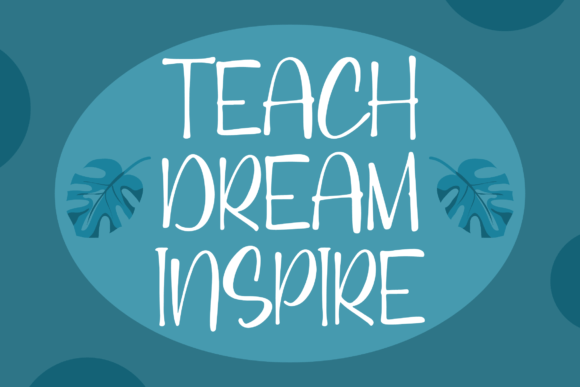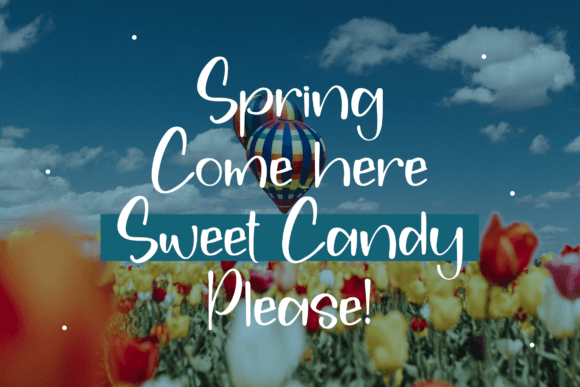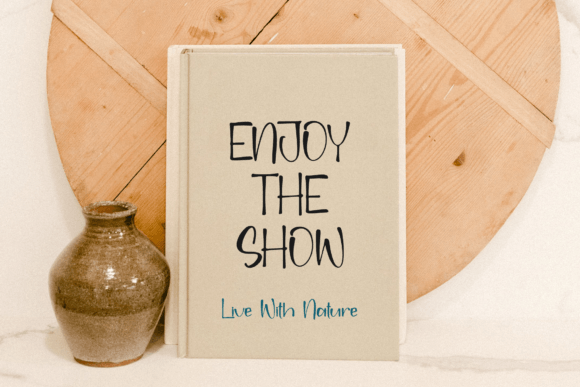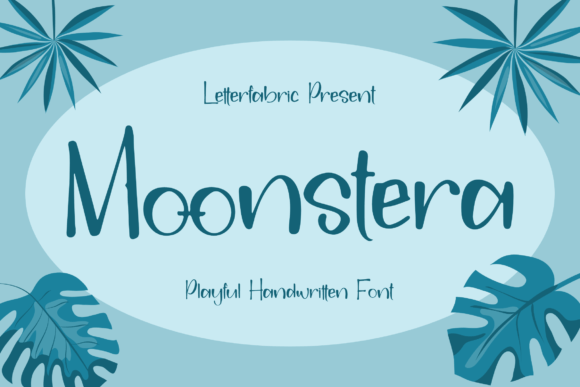
Introduction to Moonstera Font
Moonstera – Playful Handwritten Font suitable for any projects such as logos, branding projects, homeware designs, product packaging, mugs, quotes, posters, shopping bags, t-shirts, book covers, name cards, invitation cards, greeting cards, labels, photography, watermark, special events, and all your other lovely projects that need a beautiful script taste.
Key Features of Moonstera Font
Why Choose Moonstera Font?
Moonstera Font offers exceptional quality and versatility, making it a valuable addition to your design toolkit. Whether you’re creating for personal projects or commercial use, Moonstera Font delivers professional results.